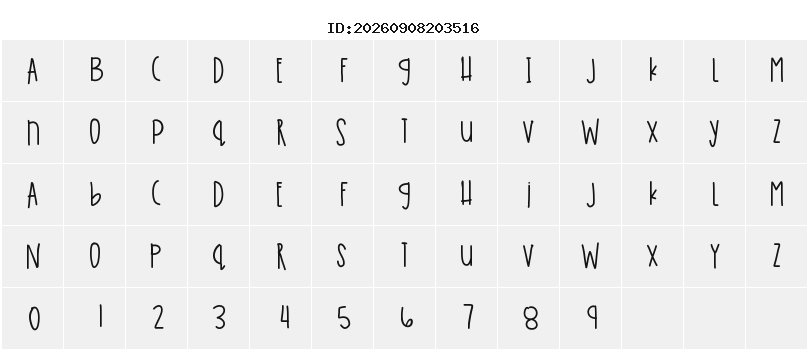
• Font Name: VirginiaIsForLovers
• Full Font Name: VirginiaIsForLovers
About VirginiaIsForLovers.ttf
VirginiaIsForLovers.ttf is a modern, elegant sans-serif font designed for ultimate readability and visual harmony. Perfect for branding, headlines, web design, and print materials.